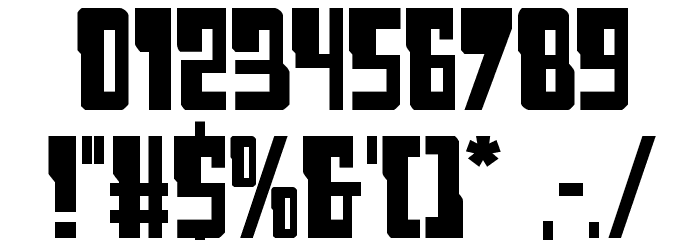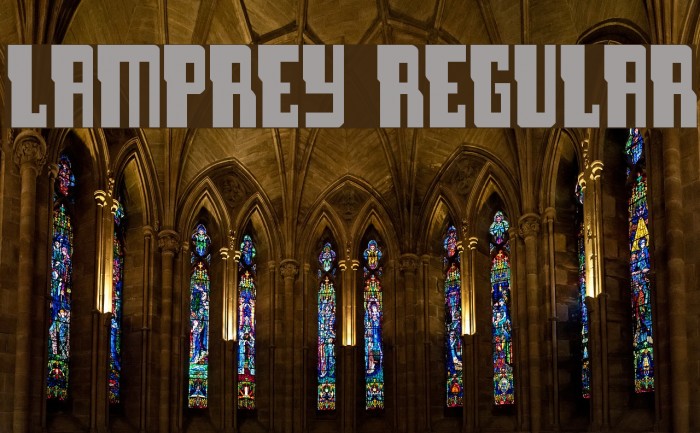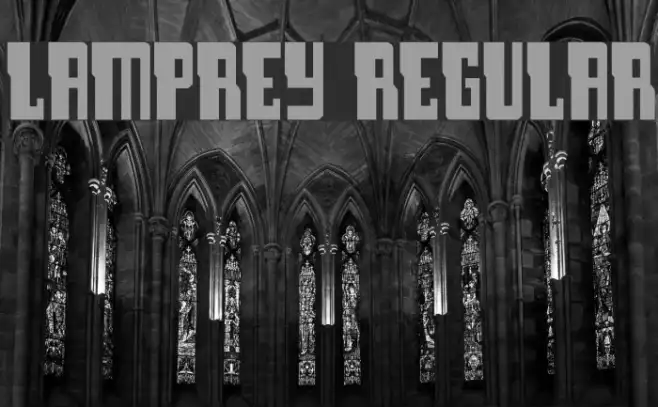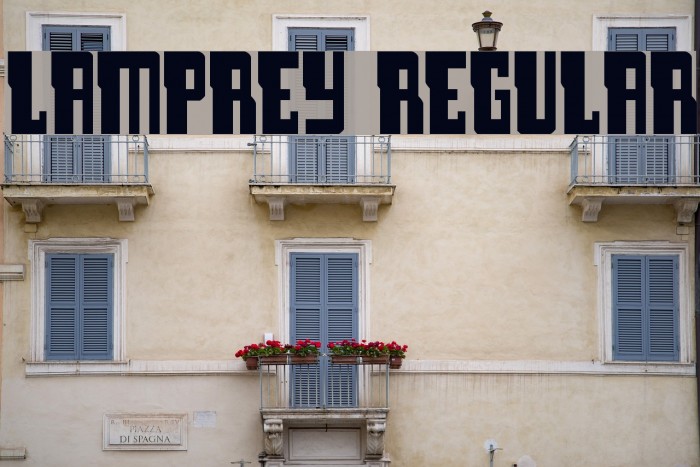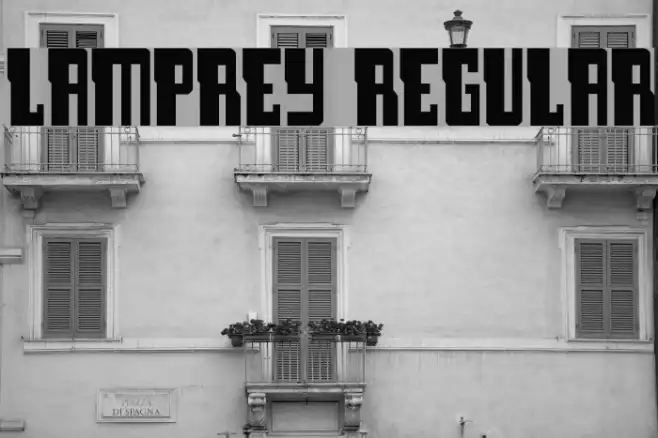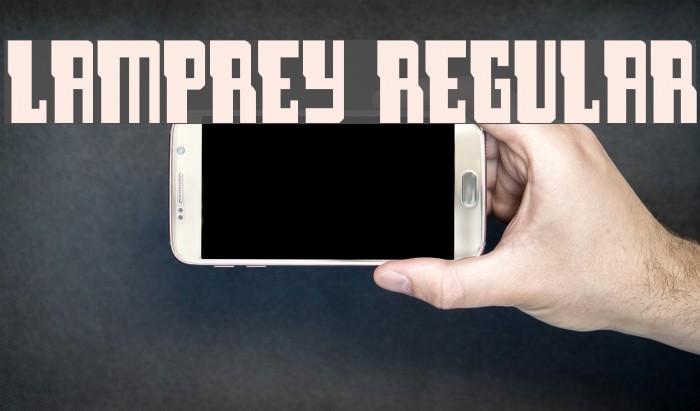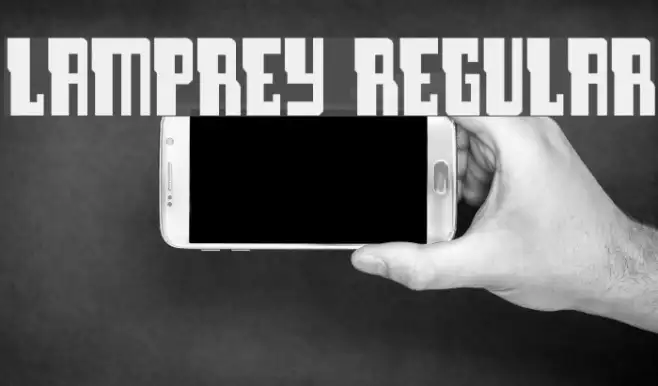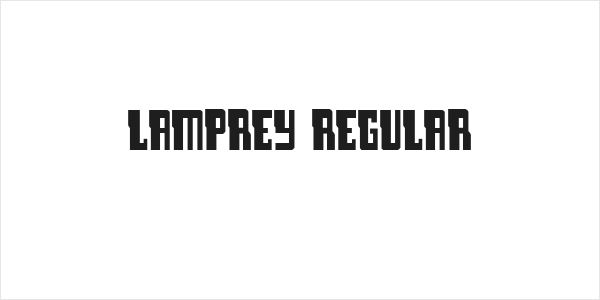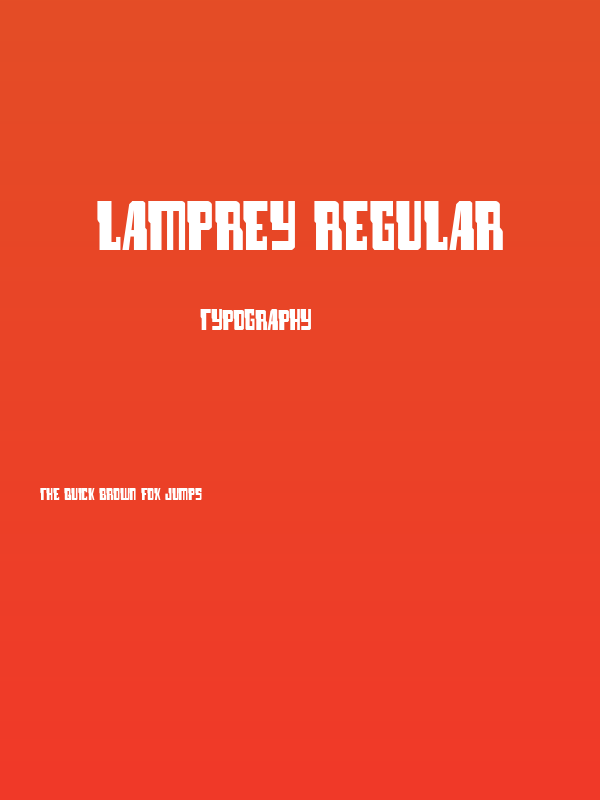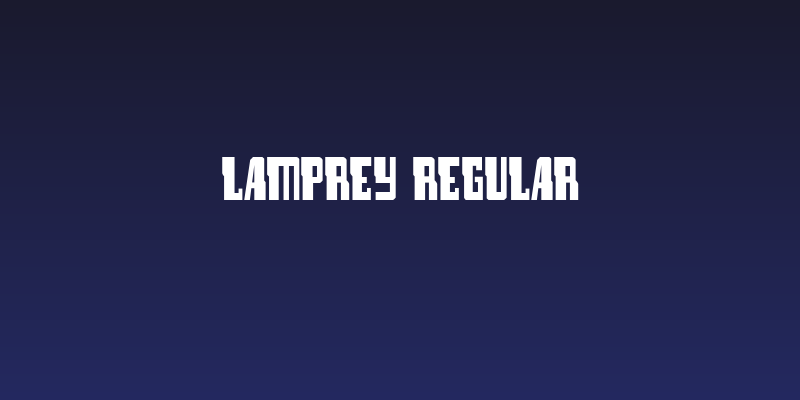
Lamprey Regular Font
Lamprey Regular Description
This font features a bold, geometric style with strong, angular lines and a blocky appearance. The characters are uniformly wide, creating a sense of stability and strength. The uppercase letters are particularly striking, with sharp edges and a modern aesthetic. The numbers and special characters maintain this boldness, ensuring consistency across all glyphs. The font's design is reminiscent of industrial or futuristic themes, making it suitable for projects that require a strong visual impact.